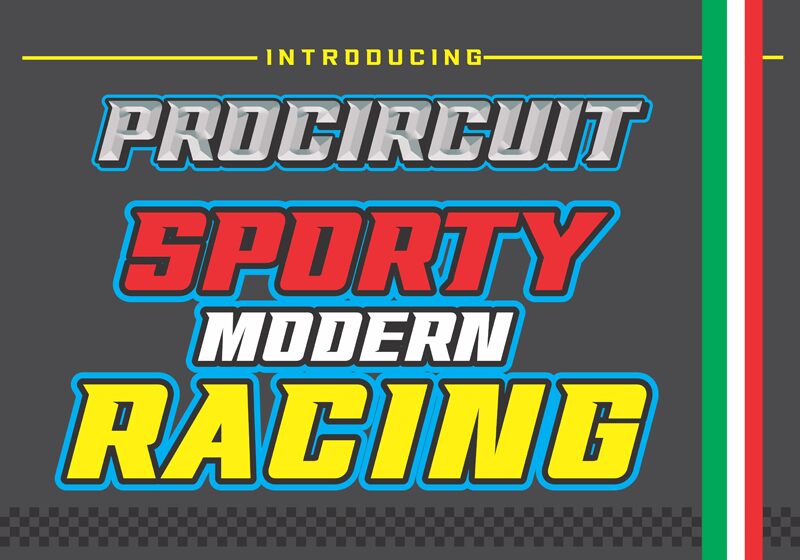
procircuit-Regular
Procircuit, designed by Sompong Pradubboot, is a display font that embodies the speed and dynamism of the racing world. With its semi-light weight and futuristic style, this font zooms ahead of conventional typography to offer designers an edge in crafting visually arresting content. Perfect for titles, logos, and posters that demand attention, Procircuit's sleek lines and modern aesthetics are a match for any project aiming to convey motion and innovation.
Whether you're working on branding for high-speed ventures or looking to inject some adrenaline into your creative work, Procircuit stands ready to accelerate your design to pole position.